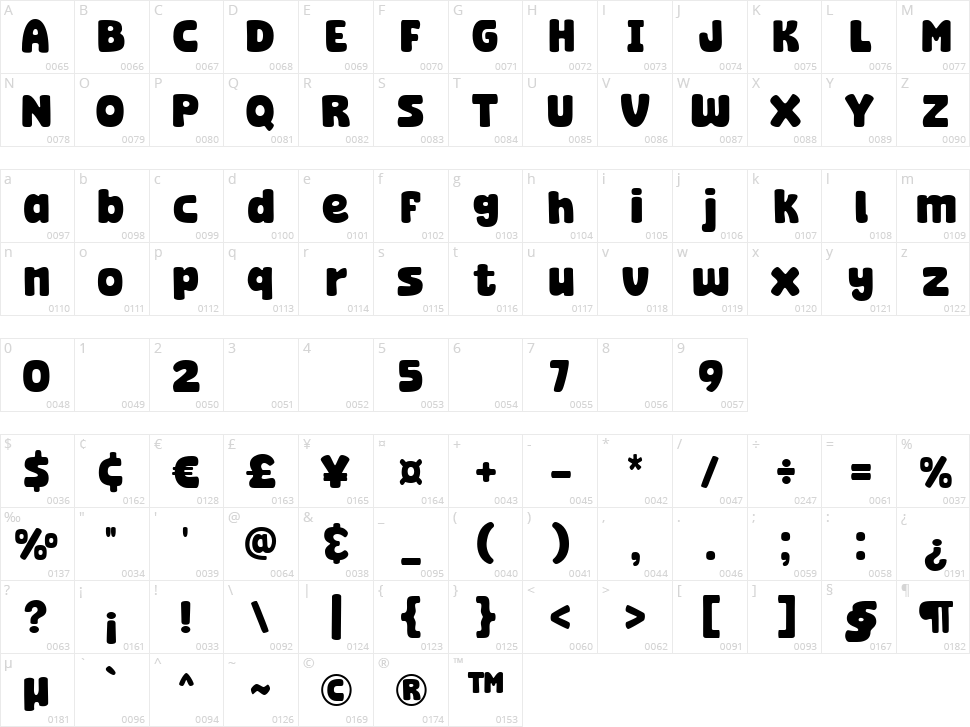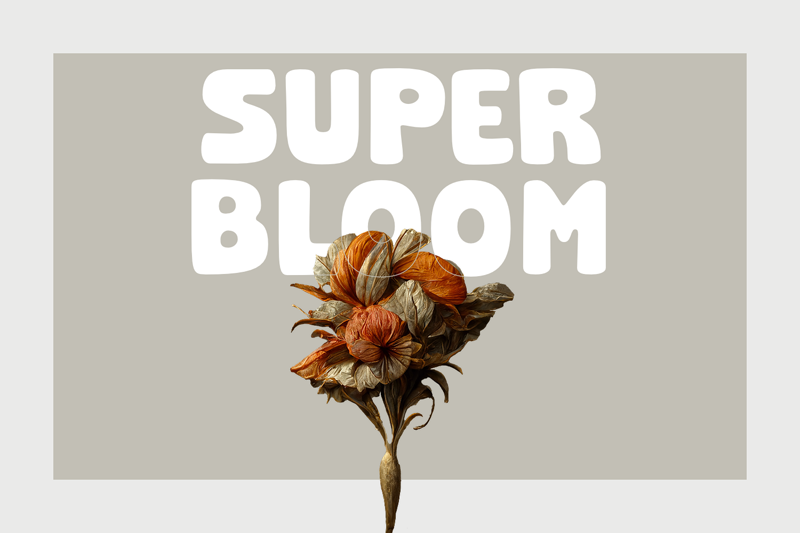
Super Bloom
Super Bloom: Where Comics Come Alive!
Super Bloom bursts onto the scene with a vibrant, playful personality that's perfect for adding a touch of comic book magic to your designs.